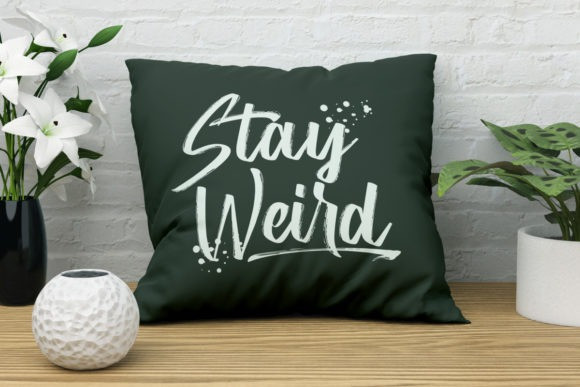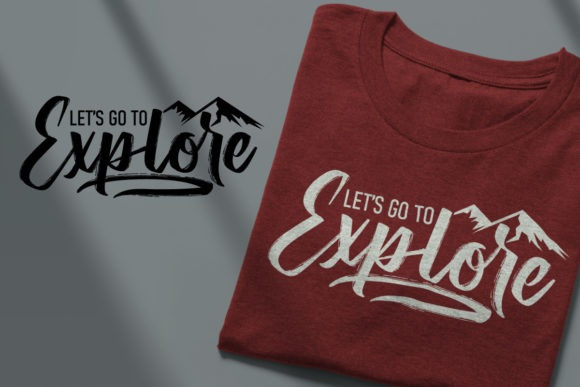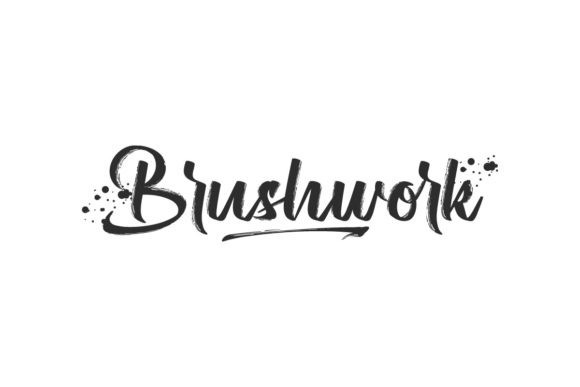
Brushwork Font
Brushwork Brush Font is a great handwritten font with a textured brush feel.
Brushwork will be great for any projects including branding, logo, stationery, business card, signage, flyer, brochure, etc.
The theme style of the font is unique, mysterious, dark, horror, movie, sporty, gamer, motorcycle, and brush style. The font will be great for events, artists, musicians, cafes, promotion, etc.